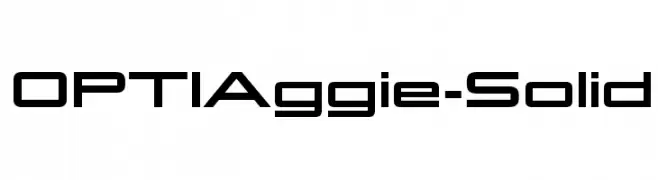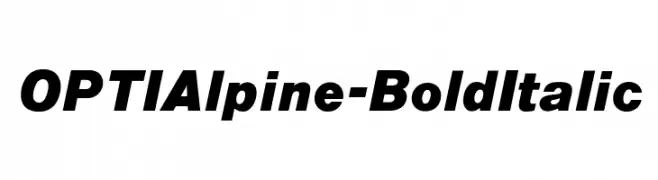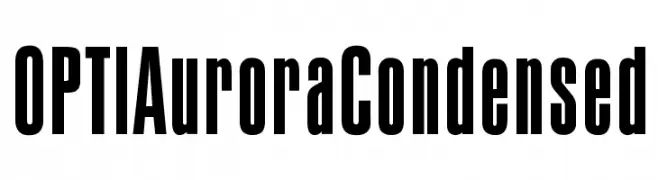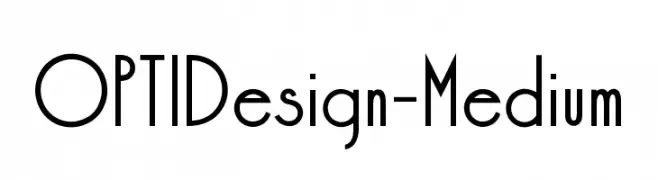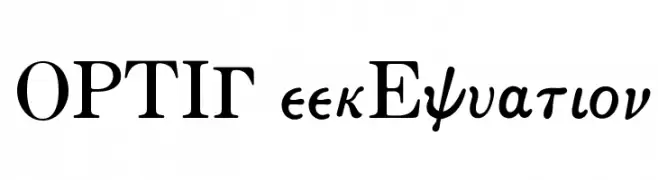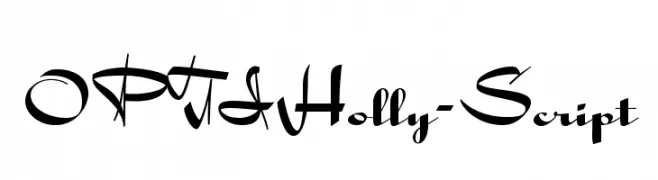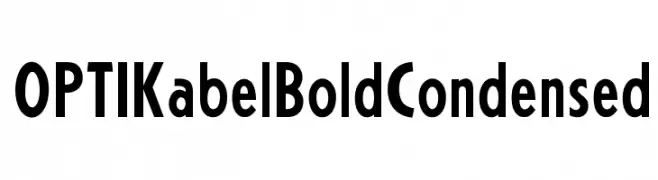
A decorative script font with elegant, flowing letterforms and a sophisticated style.
A bold, condensed font with a modern and impactful style.
A classic serif font with Greek influences, featuring bold uppercase and elegant lowercase letters.
A modern, geometric outline font with consistent stroke width and balanced design.
A bold, geometric font with a modern, tech-inspired design.
A bold, italicized font with a strong and dynamic presence.
A bold serif font with a classic and reliable appearance.
A bold, condensed font with tall, narrow letterforms and consistent stroke thickness.
A refined, high-contrast serif font with elegant, narrow characters.
A modern, geometric font with consistent stroke width and clean lines.